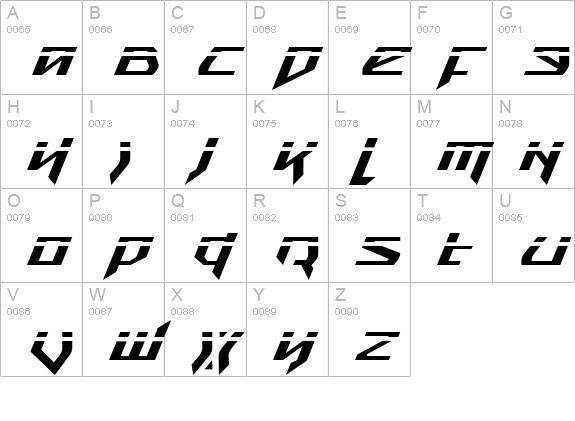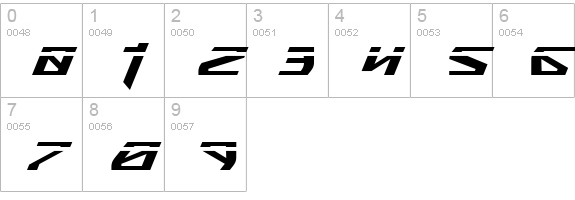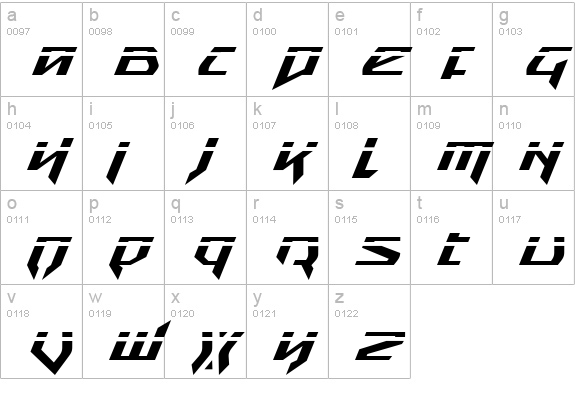
Snubfighter Phaser Italic is a distinctive, italic variant in the Snubfighter typeface family \xE2\x80\x94 well suited to design and typography projects.
Introducing the Snubfighter Phaser Italic font, a sleek and modern typeface designed to add a touch of elegance to your projects. This stylish font features a unique italic design that effortlessly combines sophistication with a futuristic edge. Perfect for creating eye-catching headlines, branding materials, and more, Snubfighter Phaser Italic exudes a sense of creativity and innovation. This versatile font is ideal for a wide range of design projects, from logos and posters to websites and social media graphics. Its clean lines and distinctive styling make it a standout choice for anyone looking to make a bold statement with their typography. Best of all, Snubfighter Phaser Italic is available for free download at FontsMarket.com. Whether you're a professional designer or a casual enthusiast, this font is sure to enhance your creative endeavors. Don't miss out on the opportunity to add this stunning typeface to your collection today!